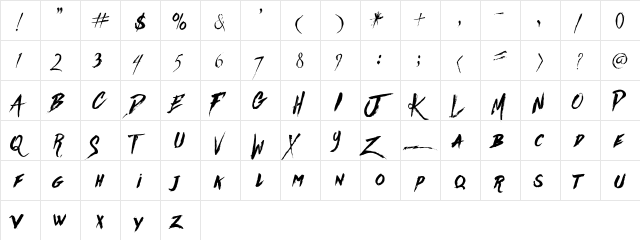
Againts Regular
| Designer | ramandhani nugraha (celcius design) |
Design Context for Againts Typeface
Againts is a composed and adaptable typeface that performs quietly and consistently across a wide range of design contexts.
Pro Tip: Use Againts in both headline and body roles to test its range before committing to a single application.